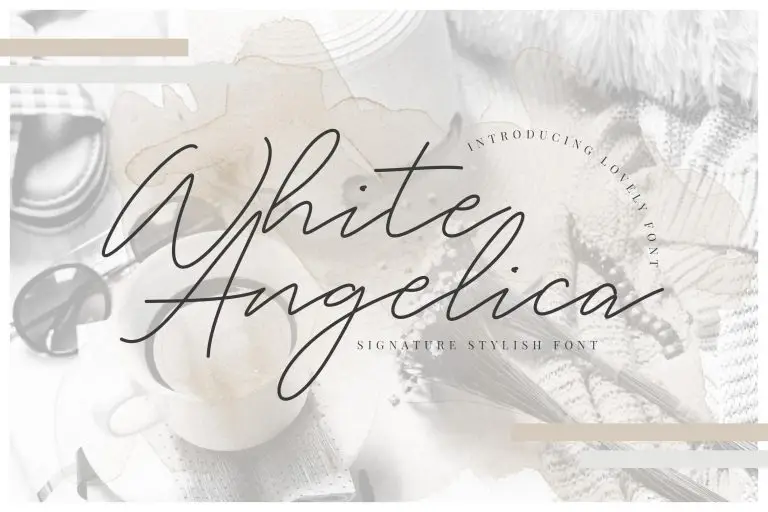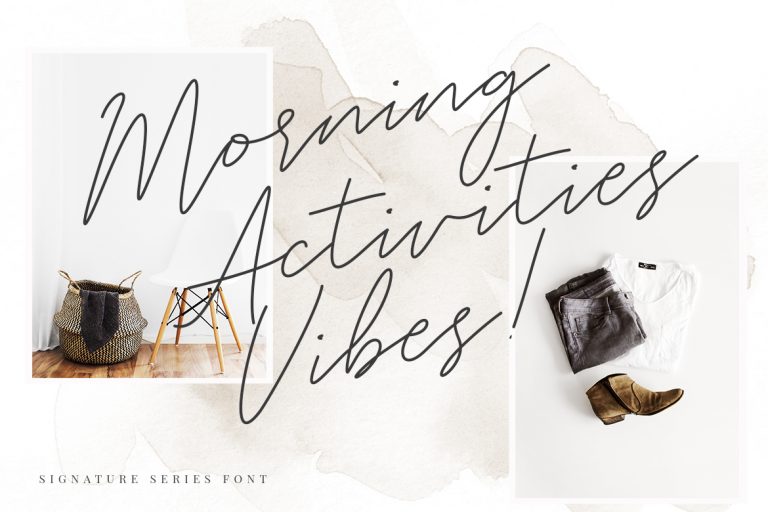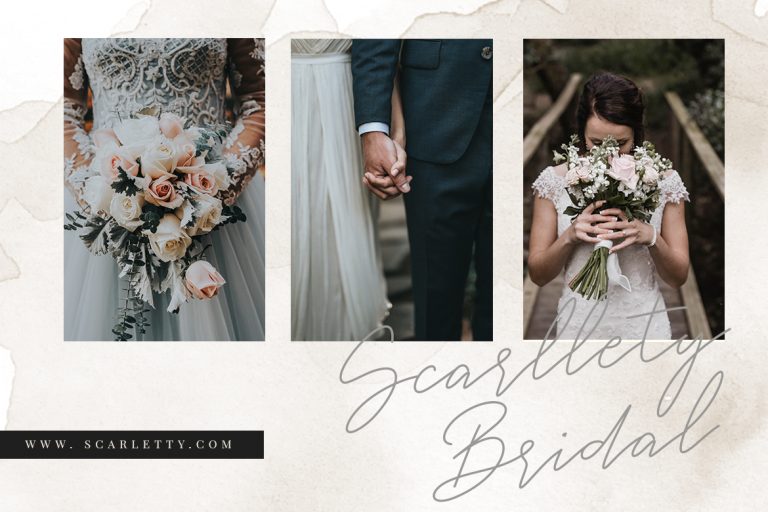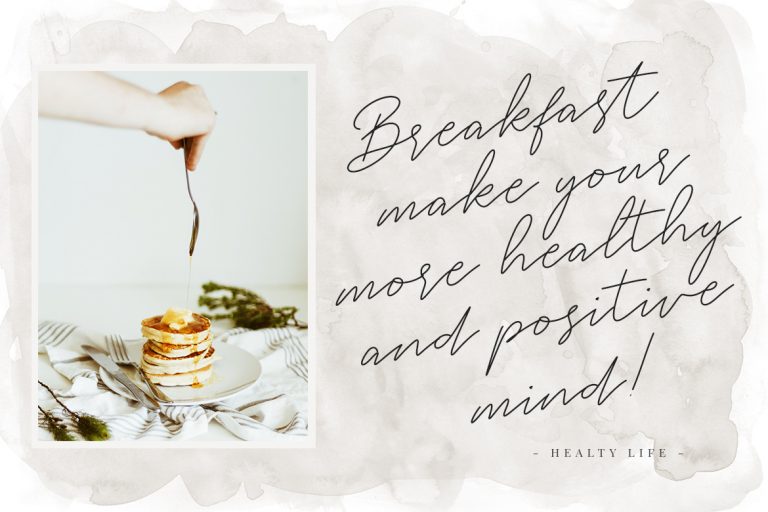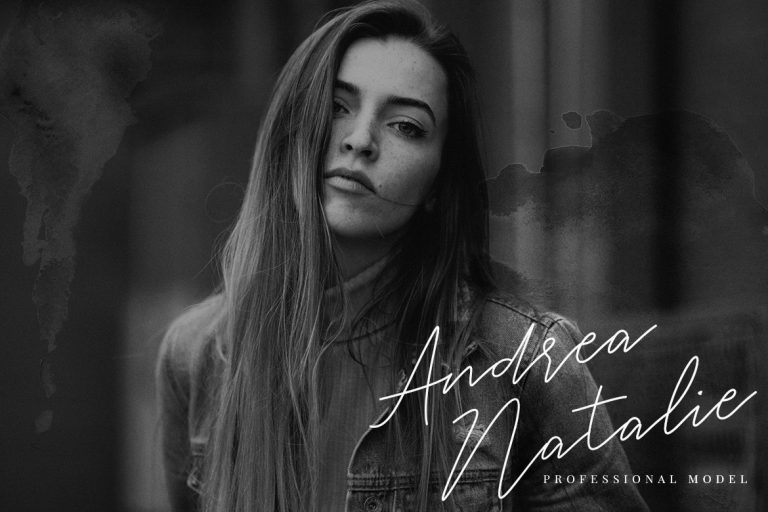
White Angelica Signature
White Angelica Signature is an elegant handwritten unique flow font with natural and organic look.
White Angelica Signature is perfect for branding projects, logo, wedding designs, social media posts, advertisements, product packaging, product designs, label, photography, watermark, invitation, stationery and any projects that need handwriting taste.
• Standard glyphs
• Ligature
• Fonts include multilingual support for; ä ö ü Ä Ö Ü ß ¿ ¡